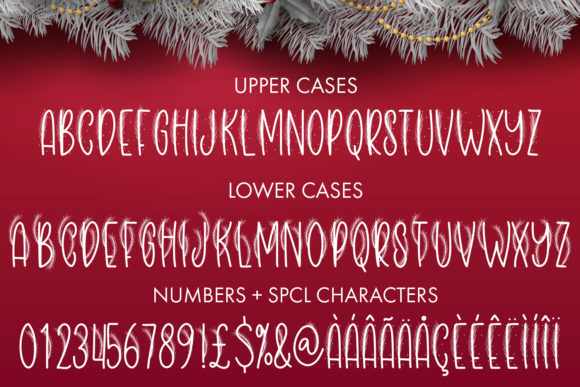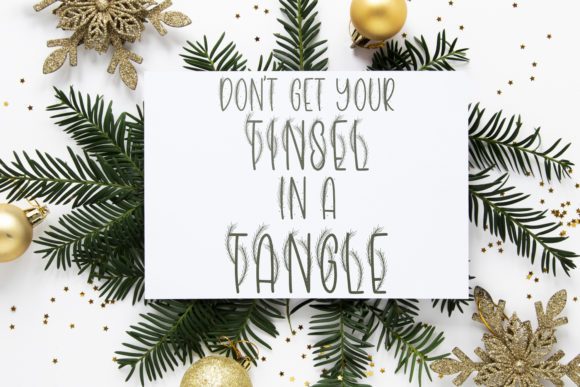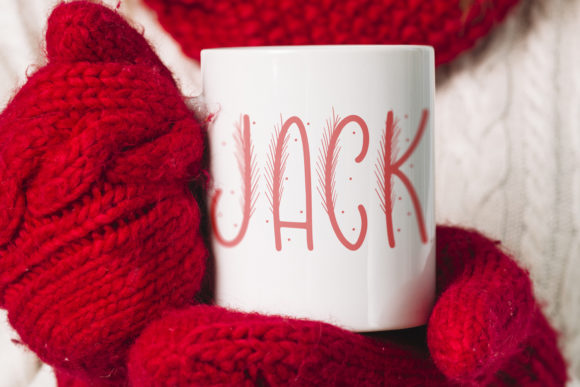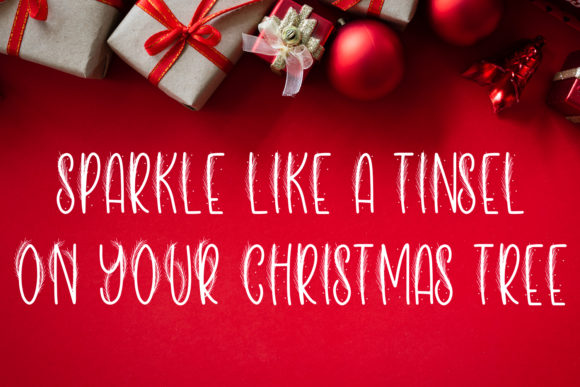
Introduction to Christmas Tinsel Font
Christmas Tinsel is a fun decorative font with a Christmas & holiday theme.
Use this gorgeous and unique font to bring any DIY project to life .
Key Features of Christmas Tinsel Font